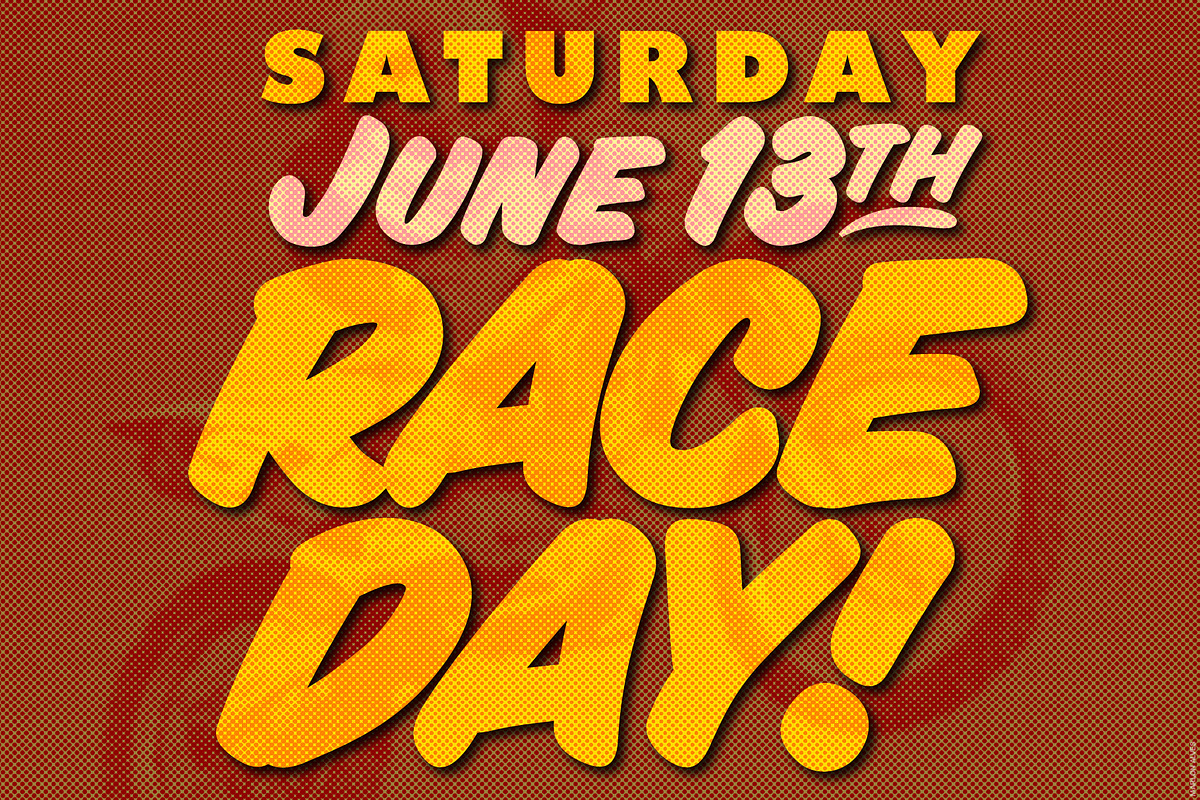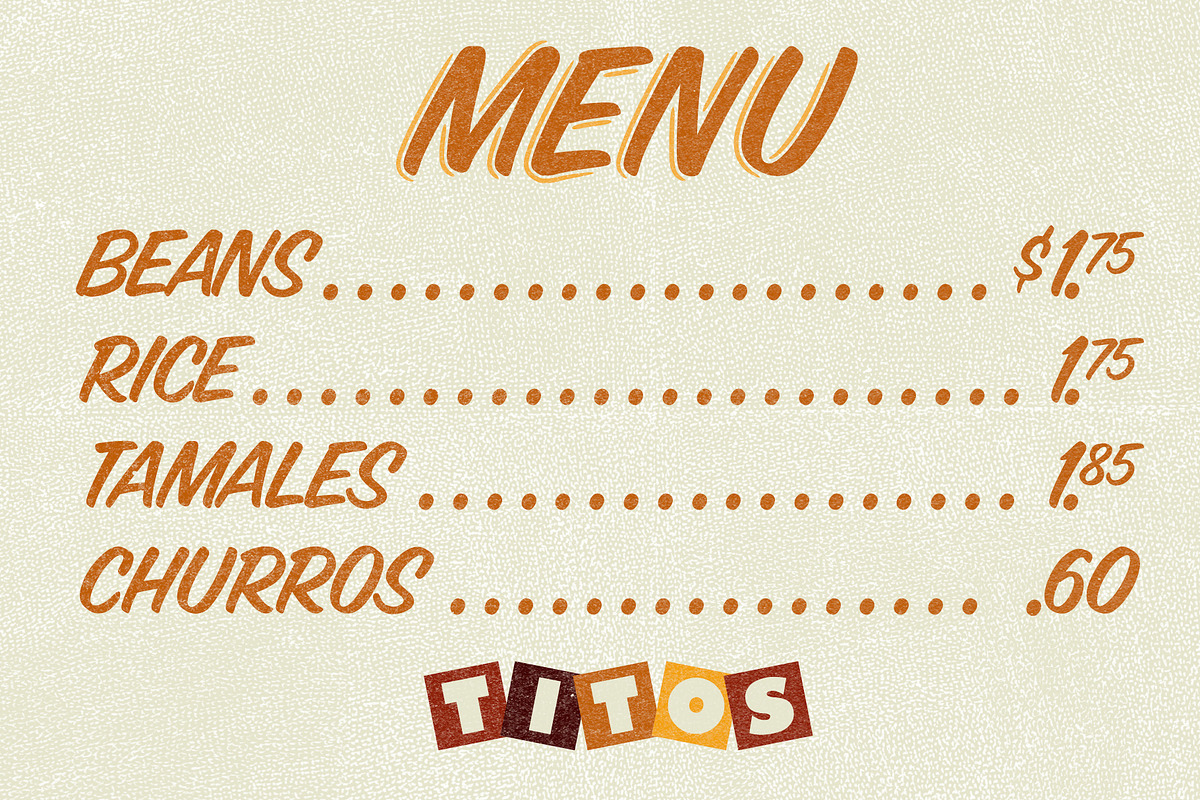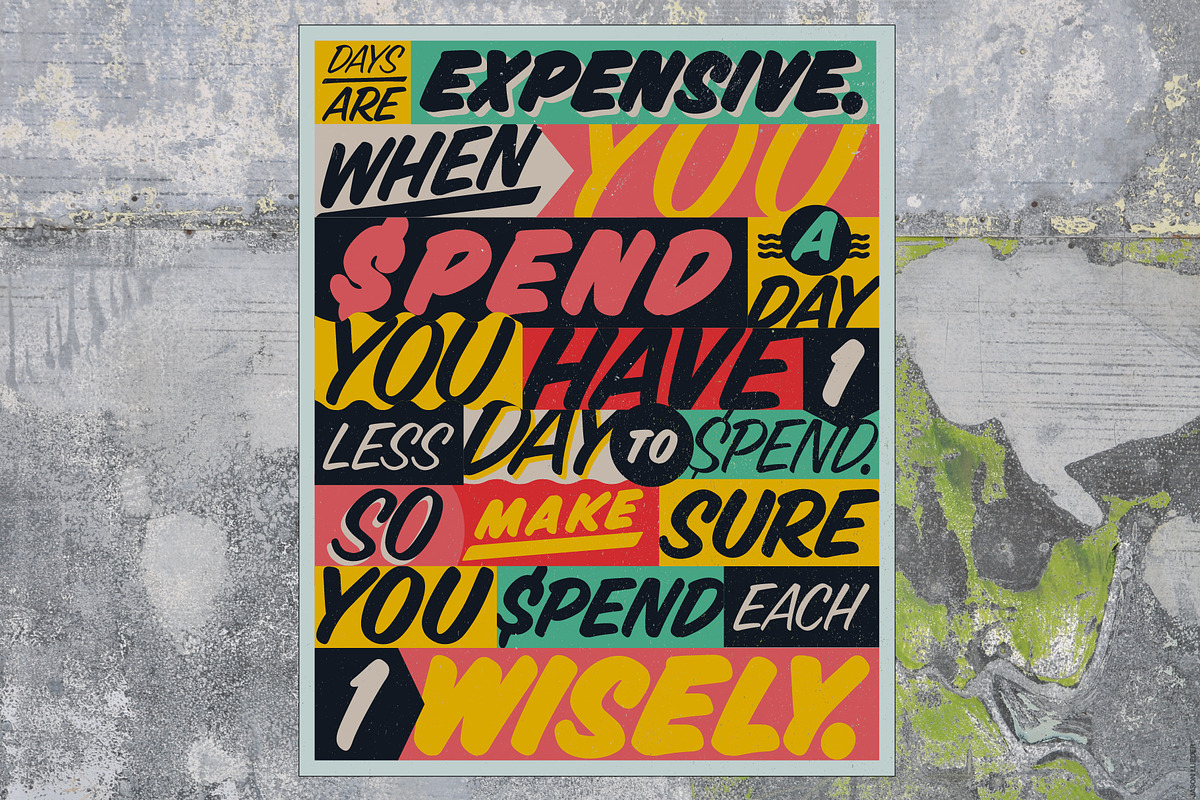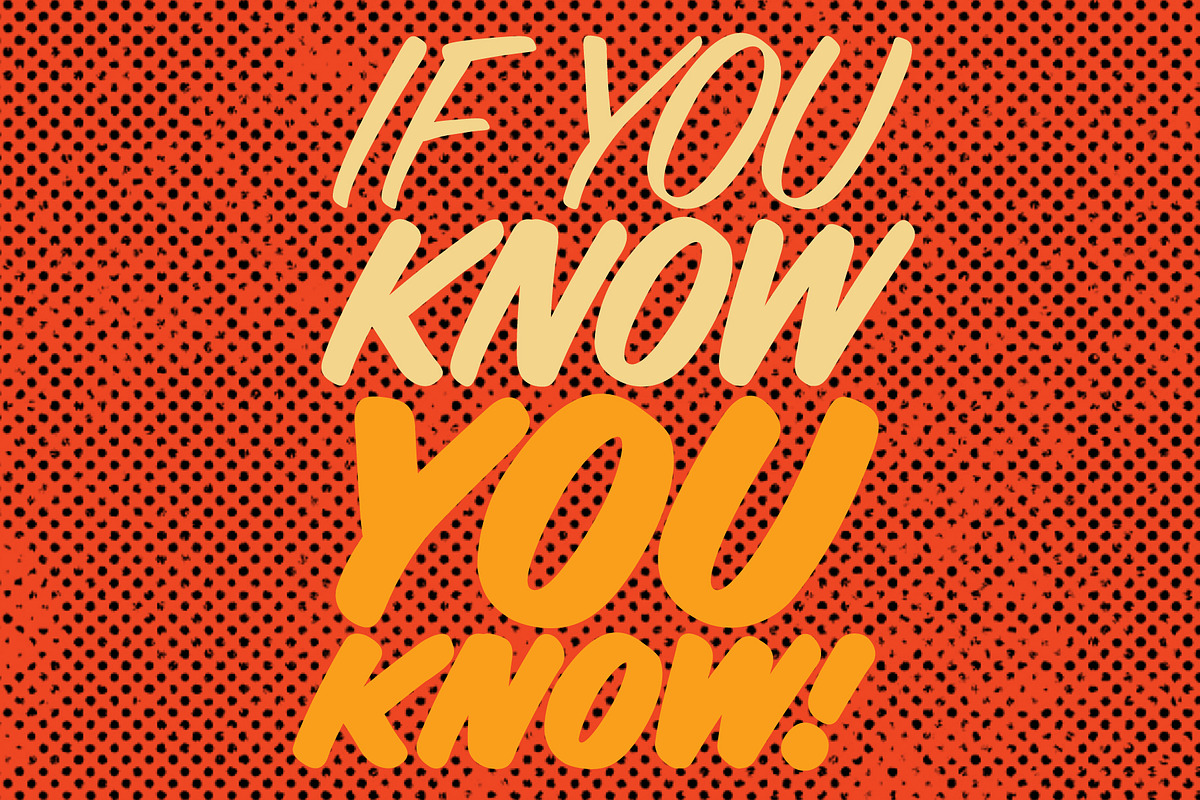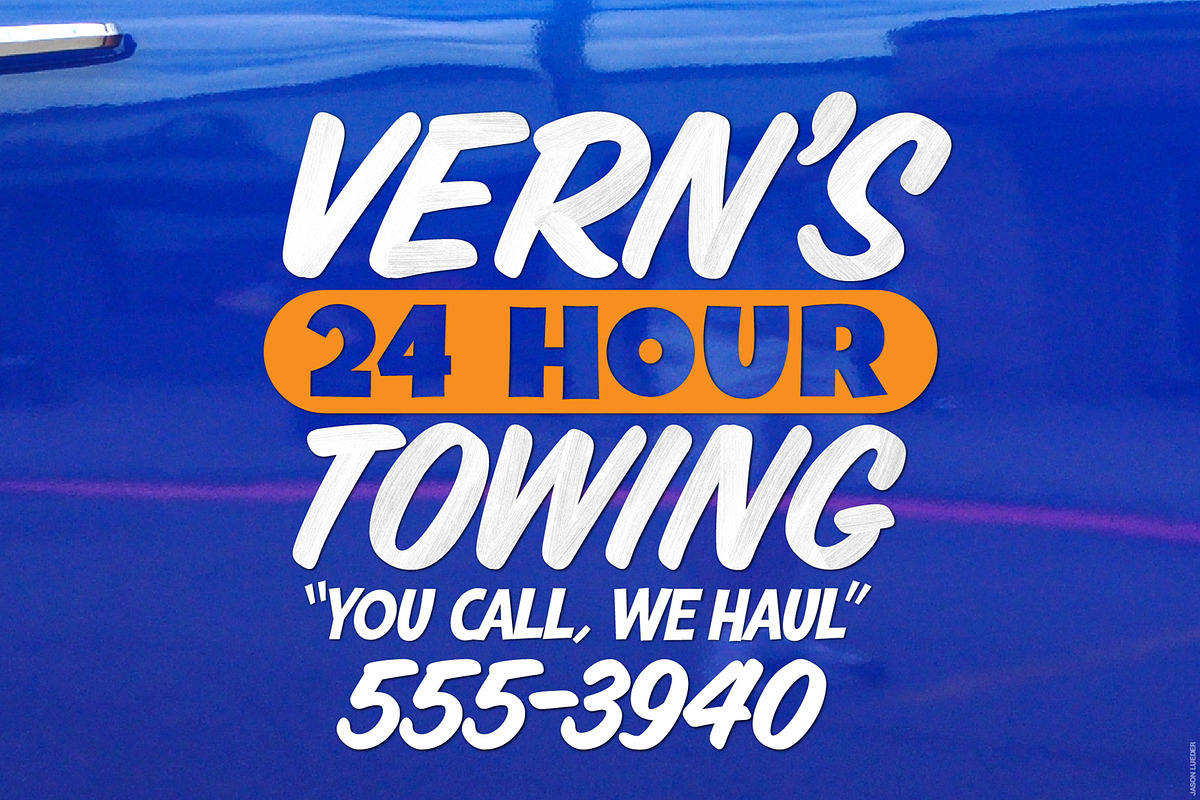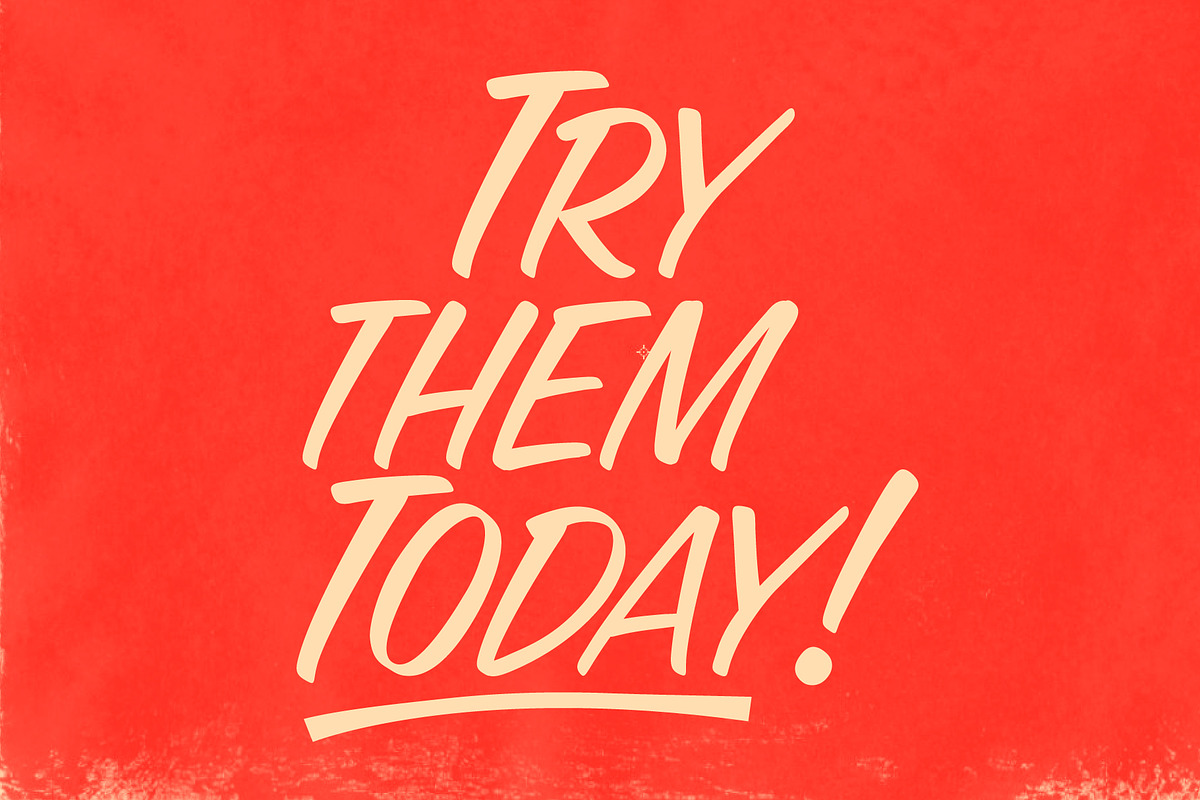
Sign Brush Type Pack | Display Type
StudioWorks proudly presents the •• S I G N • B R U S H • T Y P E • P A C K •• — a collection of five one-stroke, casual display typefaces!
The Sign Brush Type Pack covers a range of weighted typefaces inspired by the brush-lettered craftsmanship of skilled sign painters. Like a jar full of sign brushes, you’ll enjoy a diverse selection of one-stroke lettering thicknesses to utilize on any project. Perfect for building contrast with the look of hand-lettered type in logos, headlines, posters and signage.
The Sign Brush Type Pack includes:
Each typeface in the Sign Brush Type Pack includes:
- Single Case (capital) A-Z characters
- Numbers (0-9)
- Standard punctuation and glyphs
NOTE: All featured designs use typefaces from the Sign Brush Type Pack. Other designs utilize Bluto (Menu, Race Day), Burbank (Happy Hour), and Bag Boy (Vern’s Towing) — all available from StudioWorks. Vector art not included.